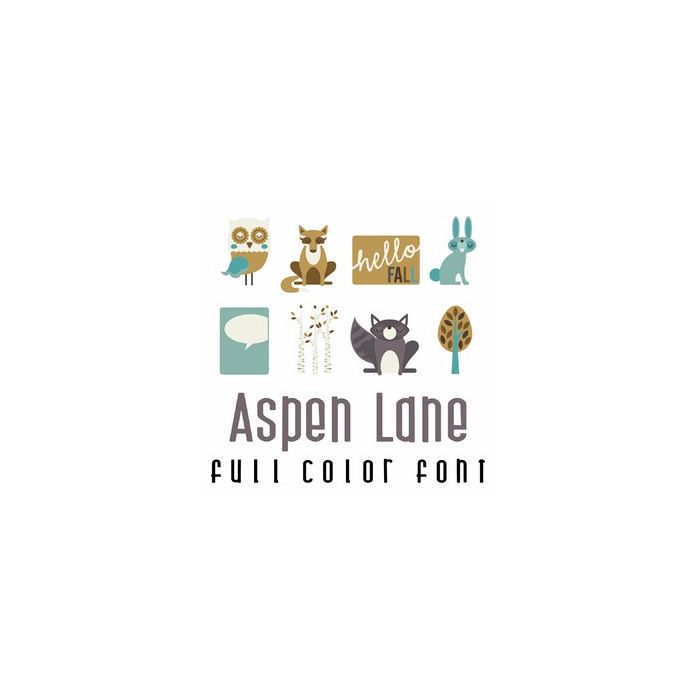
This adorable full color doodlebat font features beautiful Autumn forest imagery and journaling cards. Perfect for cards, crafts, gifts, decor, scrap book pages, planner stickers and more!